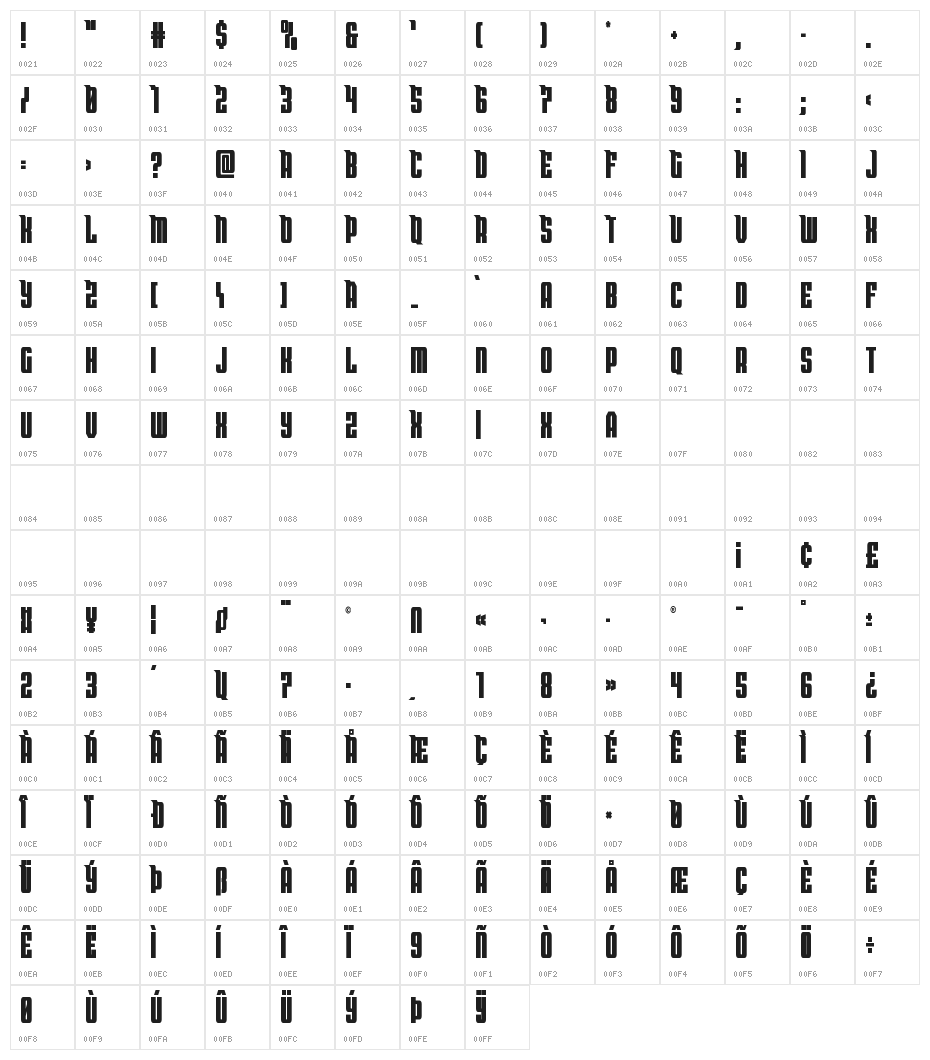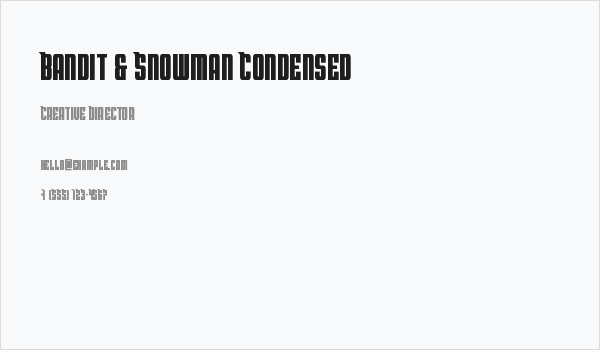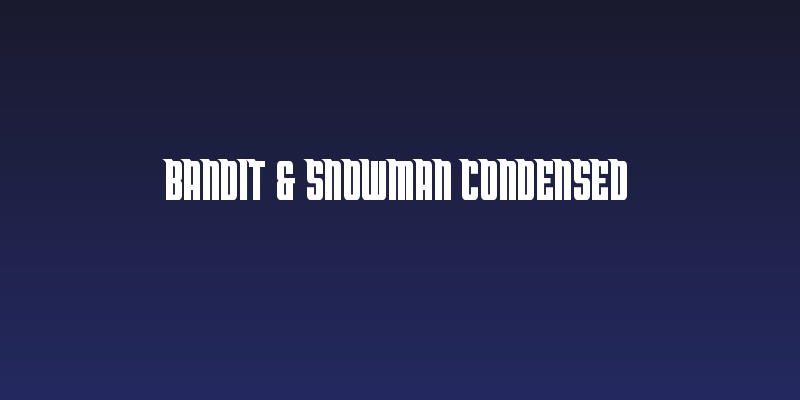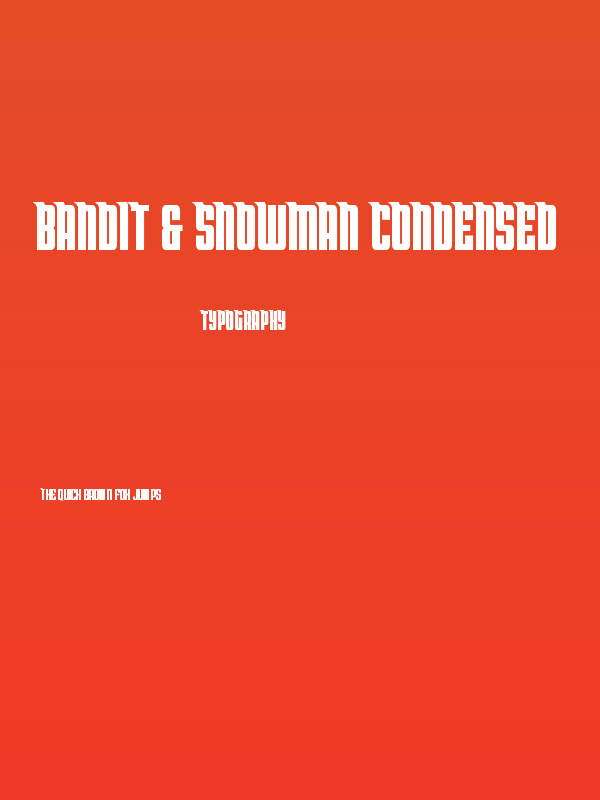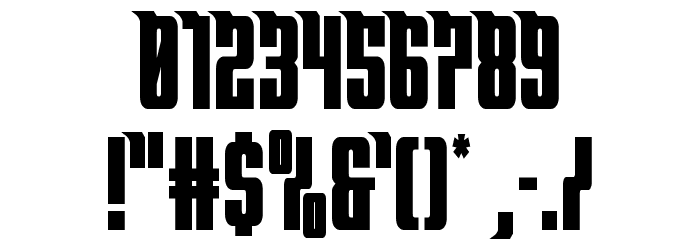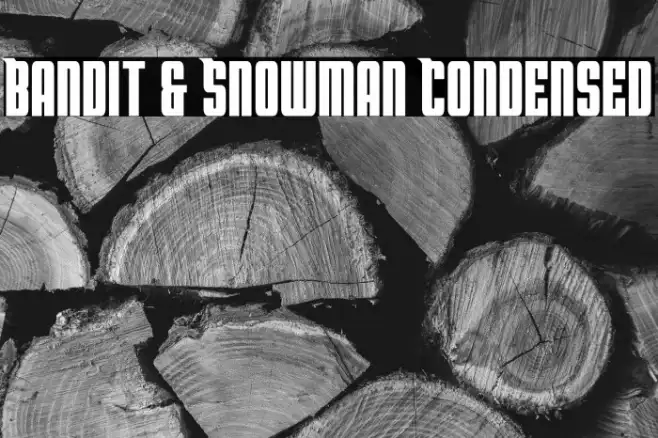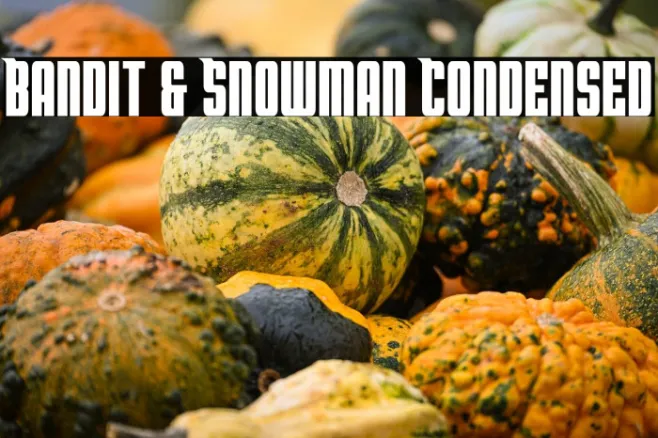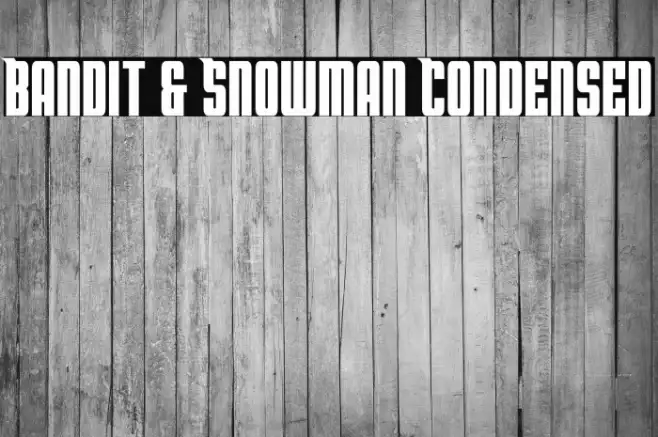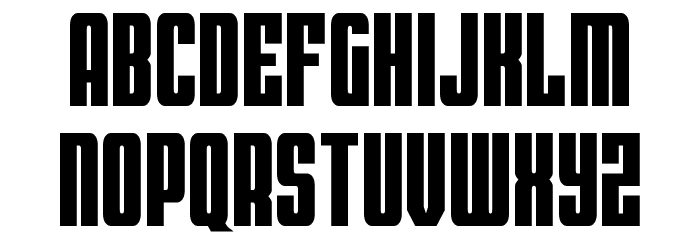
Bandit & Snowman Condensed Font
Bandit & Snowman Condensed Description
This font features a bold and condensed style with strong geometric shapes and a modern aesthetic. The uppercase letters are tall and narrow, giving a sense of strength and impact. The strokes are thick and consistent, providing a uniform appearance across all characters. The numbers and special characters maintain the same boldness, ensuring a cohesive look. This font's design is ideal for making a statement, with its high legibility and striking presence.
| Proposed Projects | Ideal for posters, headlines, branding, and logo design where a strong visual impact is needed. |